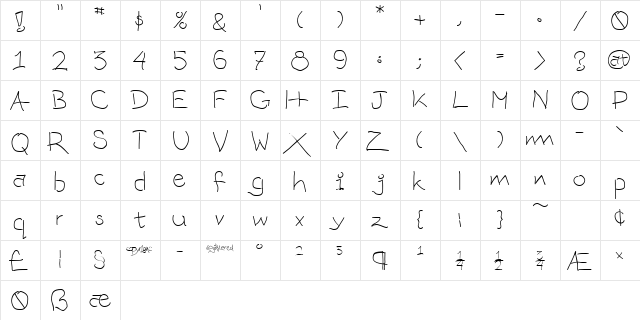
mattts wire
| Style | wire |
Design Context for mattts Typeface
mattts is a composed and adaptable typeface that performs quietly and consistently across a wide range of design contexts.